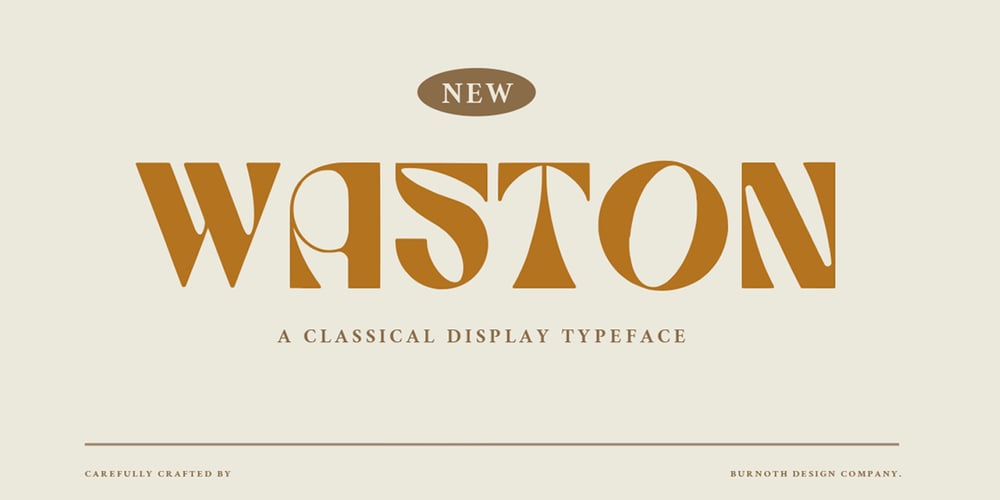
Waston Font Family was designed by Reza Kurniarinaldi and published by Burnoth Design Co.. Waston contains 1 styles and family package options. Waston is a beautiful and inspiring set of classical typography glyphs based on a minimal and simplistic approach to eleganceWaston is a classic serif font made for headlines, titles, and is well-suited for advertising, fashion mood board, branding, logotypes, packaging, titles, editorial design and modern and social media.